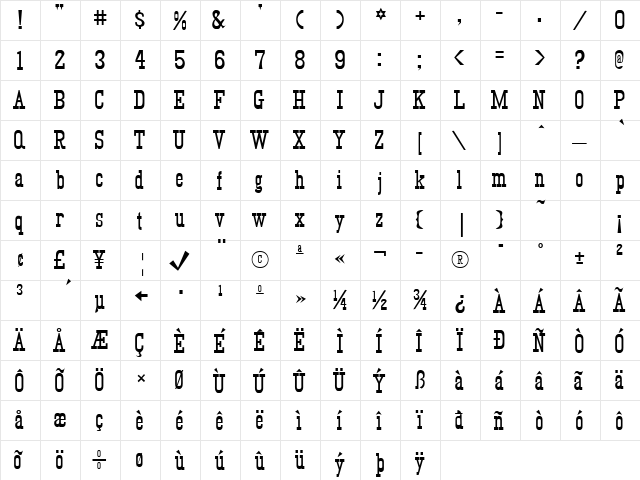
KyhotaTwo Regular
Design Context for KyhotaTwo Typeface
KyhotaTwo is a composed and adaptable typeface that performs quietly and consistently across a wide range of design contexts.